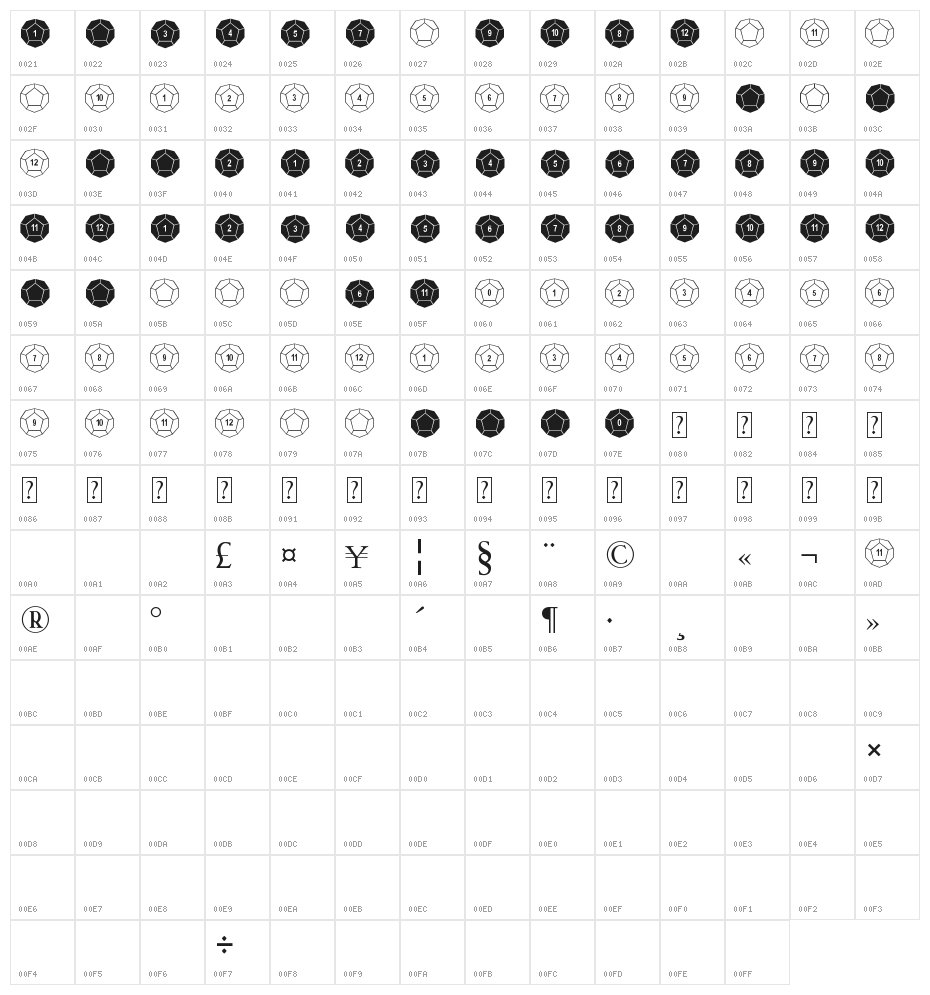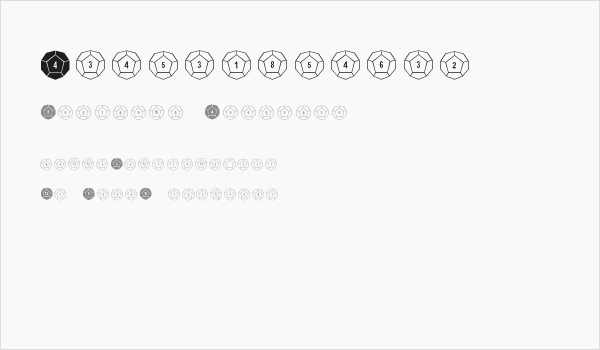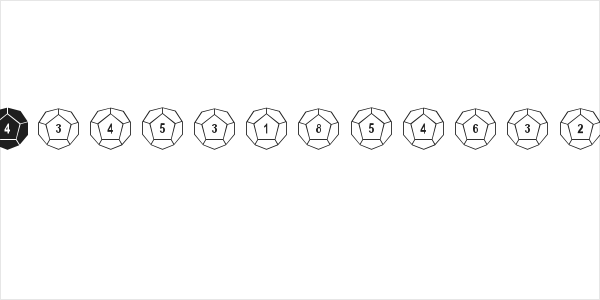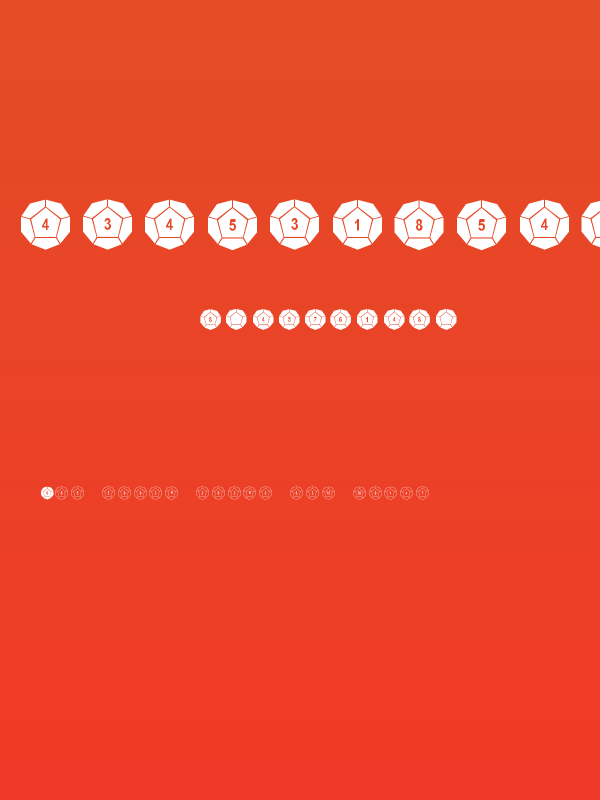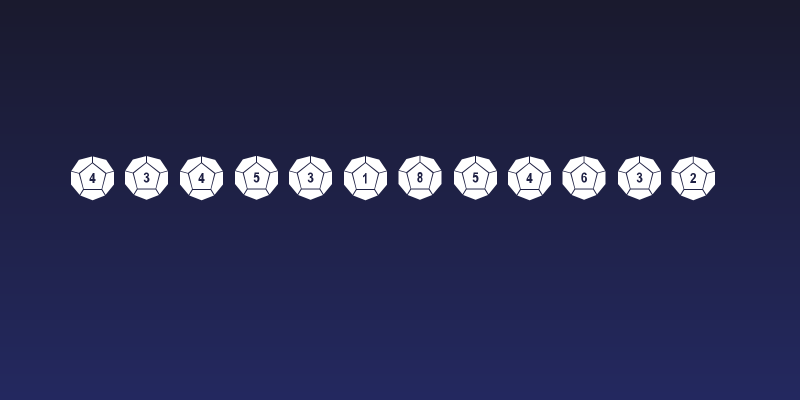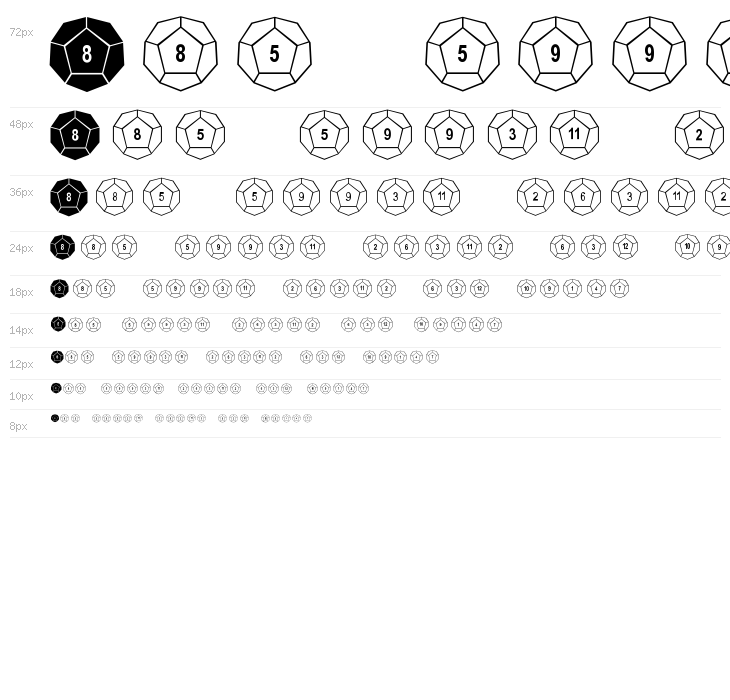
Dodecahedron Font
Dodecahedron Description
A geometric, monospaced font where each character is enclosed within a stylized dodecahedron outline, available in both filled and outline versions. The numerals are centered and evenly spaced within each shape, providing a uniform and mathematical appearance.
Overall StyleGeometric, Modern, Decorative
Use CaseGame design, infographics, educational posters, themed event materials.
Proposed ProjectsBoard games, educational materials, math or science-themed graphics, dice design, infographics.